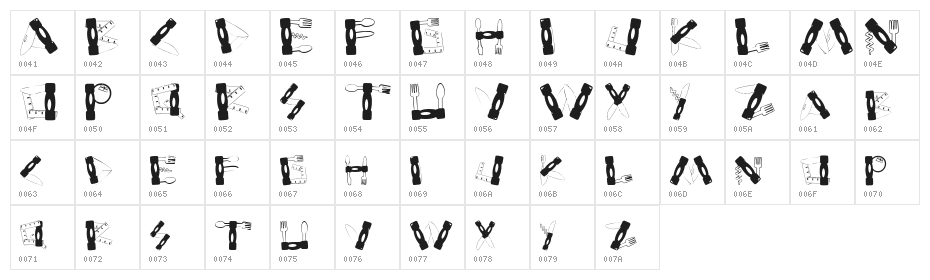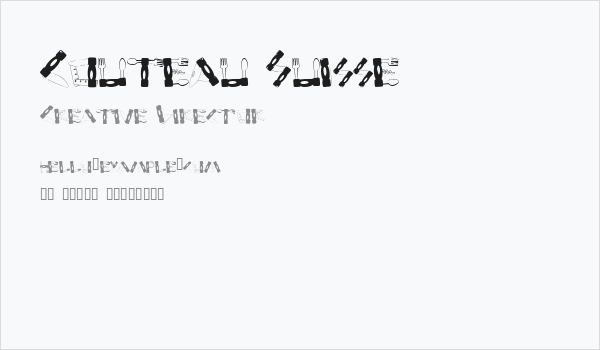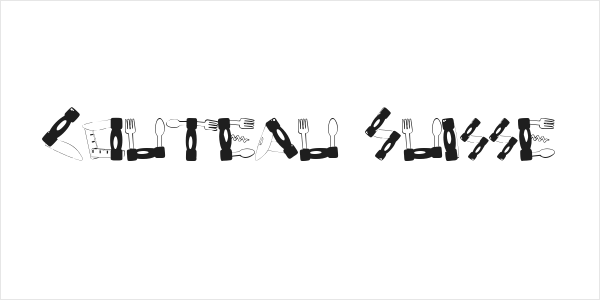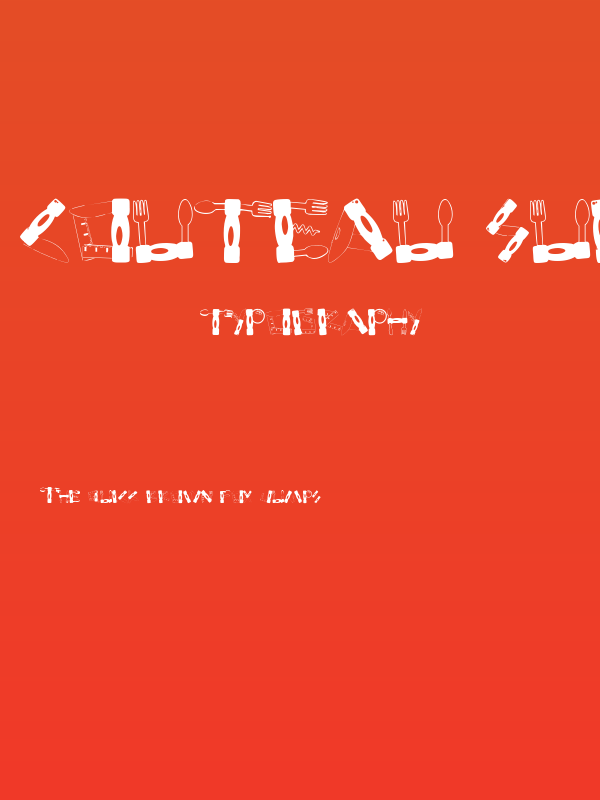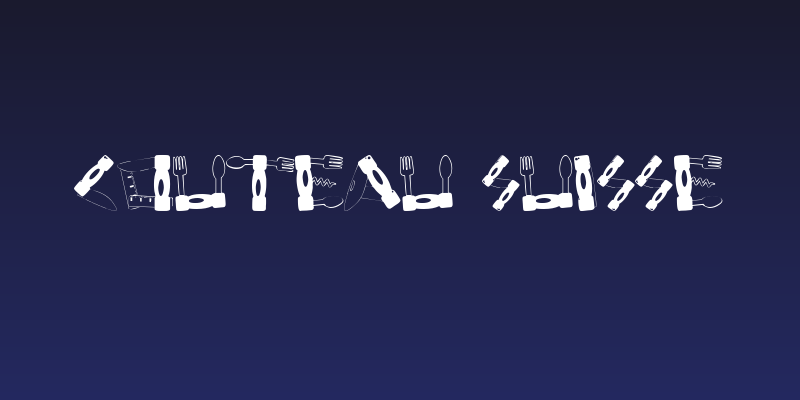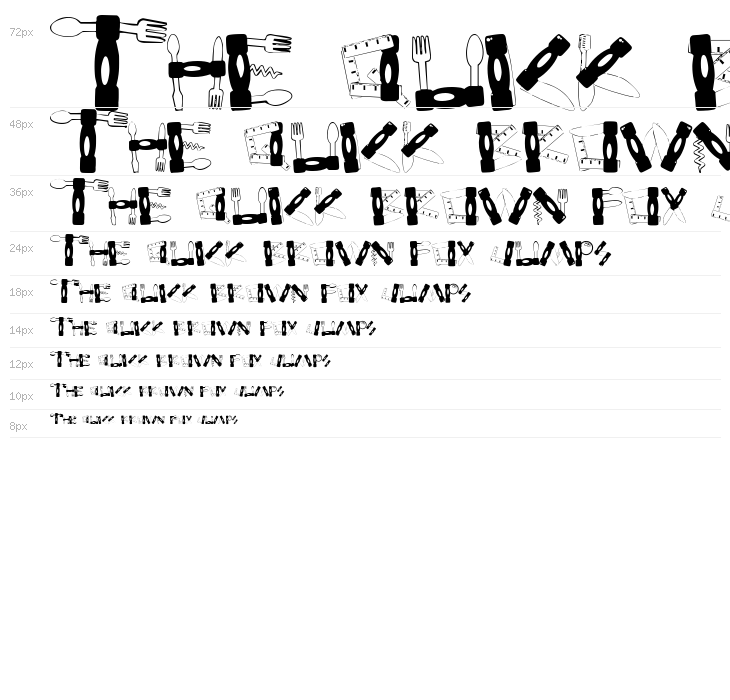
Couteau Suisse Font
Couteau Suisse Description
This font is a playful and creative design that incorporates elements of a Swiss Army knife into each character. The letters are composed of various tools such as knives, forks, and corkscrews, giving it a unique and whimsical appearance. The font is highly decorative and is best suited for projects that require a fun and unconventional look. The characters are well-defined, with each tool element clearly visible, adding to the overall charm and novelty of the design.